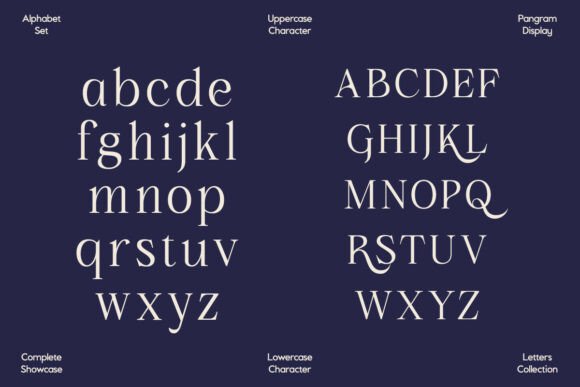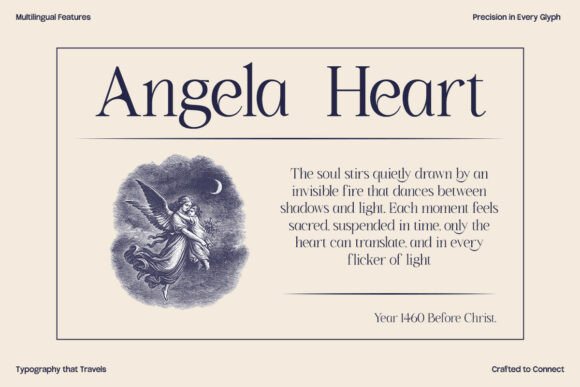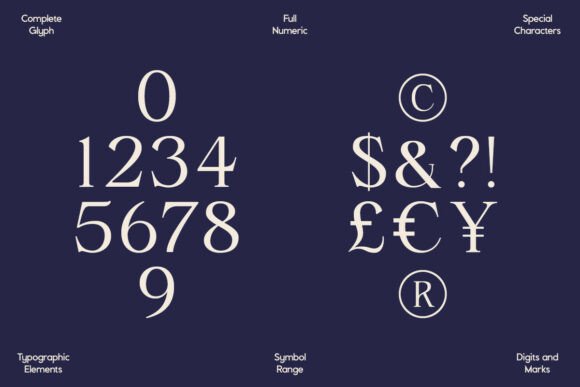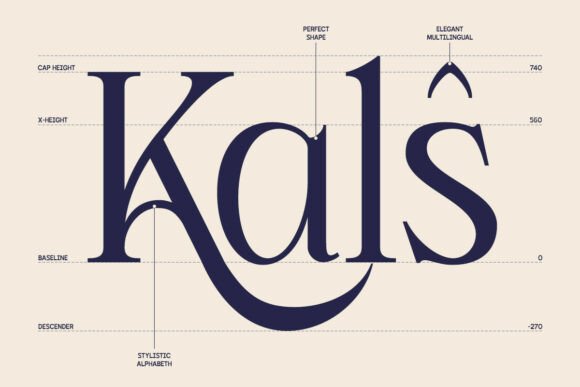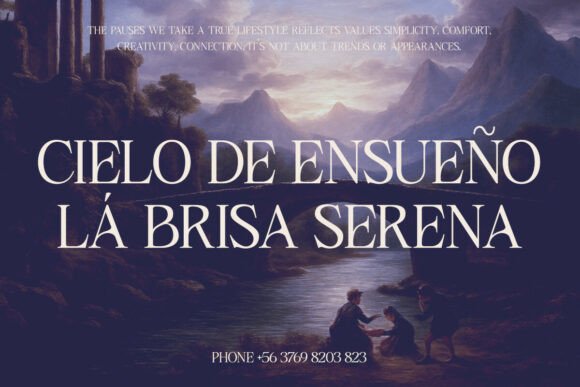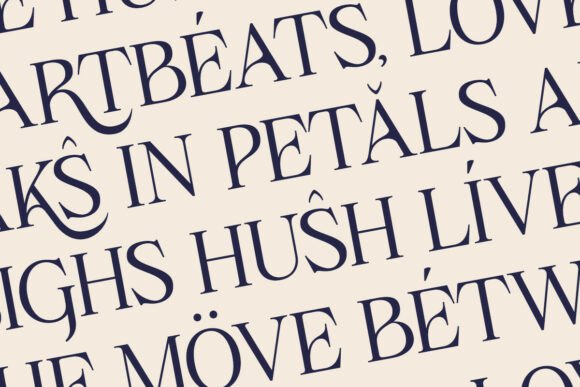
GC Saphone Font – Elevate Your Designs with Sophistication
In the world of typography, a well-crafted font can make all the difference in elevating your design from ordinary to extraordinary. Introducing GC Saphone Font, a modern, elegant serif typeface that embodies the perfect blend of timeless refinement and contemporary sophistication. Designed to capture attention while maintaining grace, GC Saphone is the ideal choice for designers and crafters seeking to add a touch of luxury and style to their projects.
A Modern Classic
GC Saphone typeface is a masterclass in modern elegance. Its high-contrast strokes, graceful serifs, and refined curves come together to create a sophisticated aesthetic that exudes refinement and poise. This font is not just a means of communication; it’s a statement piece that can elevate your brand, product, or editorial design to new heights. With GC Saphone, you can create stunning headlines, logos, packaging, and visual identities that leave a lasting impression on your audience.
One of the standout features of GC Saphone Font is its versatility. Whether you’re designing for fashion, lifestyle, luxury products, or artistic visuals, this typeface adapts seamlessly to any style or theme. Its sophisticated yet approachable demeanor makes it perfect for a wide range of applications, from high-end branding and advertising to editorial layouts and packaging design.
Crafted with Precision
GC Saphone Font is crafted with precision, ensuring that every detail, from the subtle variations in line width to the elegant serifs, contributes to a cohesive and refined aesthetic. This attention to detail results in a font that not only looks beautiful but also feels luxurious and high-end. When you use GC Saphone, you’re not just selecting a font; you’re investing in a design element that will elevate your project and set it apart from the competition.
PUA-Encoded for Effortless Design
To make design life easier, GC Saphone Font comes PUA-encoded, allowing effortless access to all glyphs, swashes, and alternate characters. This feature means you can easily incorporate a range of design elements into your project without needing to switch between different fonts or manually adjust characters. The result is a streamlined design process that lets you focus on creativity rather than technicalities.
Perfect for:
- Headlines and Titles: GC Saphone’s elegant and sophisticated design makes it perfect for headlines and titles that need to capture attention and convey luxury.
- Branding and Logos: Create a lasting impression with GC Saphone’s refined and polished aesthetic, ideal for high-end branding and logos.
- Packaging Design: Elevate your packaging design with GC Saphone’s sophisticated and elegant style, perfect for luxury products and high-end goods.
- Editorial Layouts: Add a touch of sophistication to your editorial designs, from magazines to newspapers, with GC Saphone’s refined and classic aesthetic.
- Visual Identities: Create stunning visual identities for your brand or product with GC Saphone’s versatile and polished design.
GC Saphone Font is more than just a typeface; it’s a design statement that combines modern elegance with timeless sophistication. Its versatility, precision-crafted details, and PUA-encoded features make it an indispensable tool for designers and crafters seeking to create high-end visual identities, branding, and designs. Whether you’re working on a luxury product, fashion editorial, or high-end branding project, GC Saphone Font is the perfect choice for adding a touch of refinement and style. Elevate your designs to new heights with GC Saphone – the epitome of sophisticated serif typography.